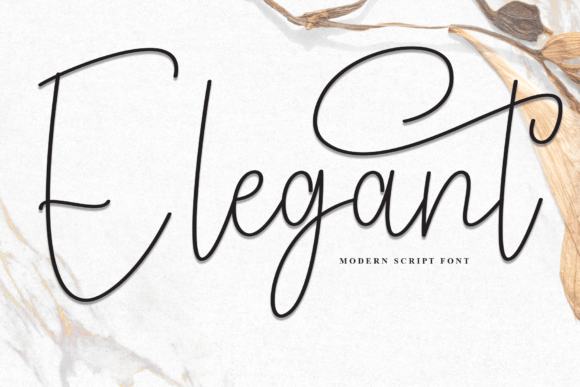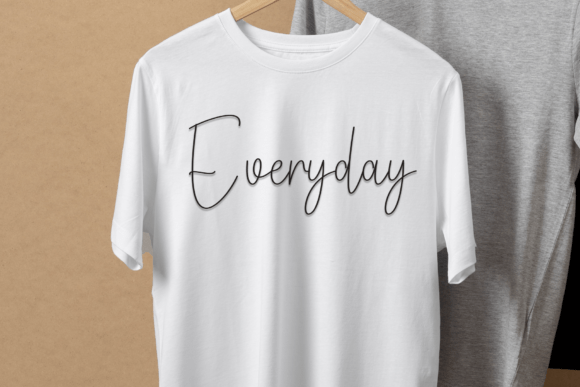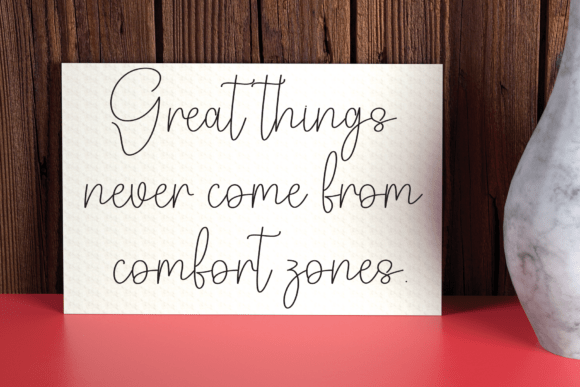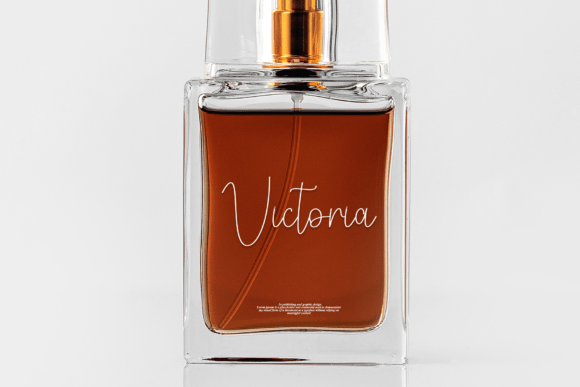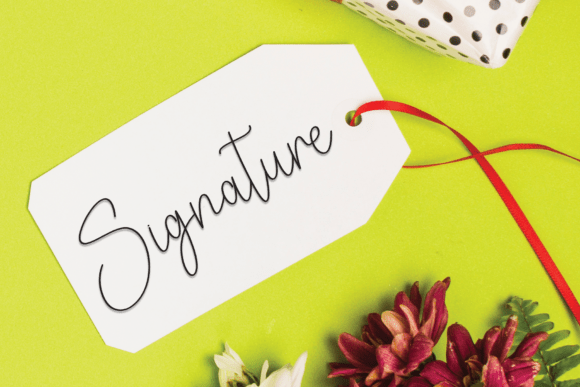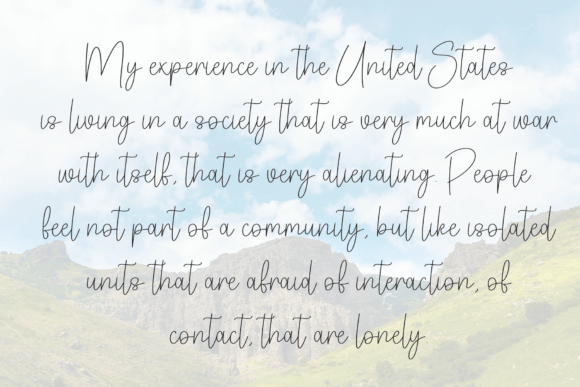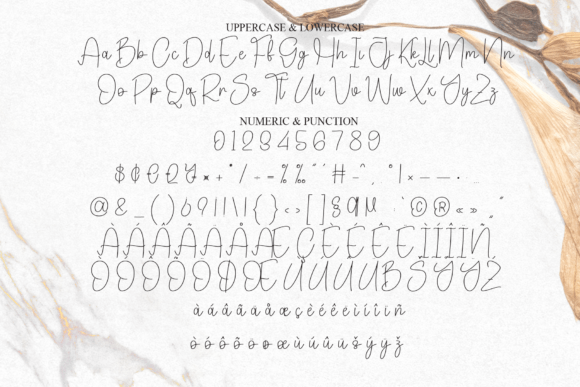
The Perfect Script for Your Next Design Project
Have you ever found yourself in a creative rut, staring at a blank canvas, searching for the perfect font to bring your design to life? That’s where Elegant Font comes in – a stylish handwritten script that’s sure to elevate your projects and leave a lasting impression.
This versatile font is designed to blend modern elegance with a playful touch, making it perfect for logos, packaging, and invitations. Its fluid strokes and charming curves bring a personal feel to any design, adding warmth, sophistication, and creativity to every project.
For designers, Elegant Font is a valuable asset that can help you stand out from the crowd and bring your unique vision to life. Whether you’re working on a high-end branding project or a personal invitation, this typeface is sure to add a touch of elegance and sophistication to your design.
Elegant Font Key Features
- Font Family: Elegant Font is a premium font family with 12 styles, including Regular, Italic, Bold, and Bold Italic.
- Unique Characteristics: Elegant Font features a unique blend of modern and classic elements, with a focus on elegance and sophistication.
- Font Metrics: Each font style has a consistent x-height, baseline, and cap height, ensuring a cohesive look across all styles.
Elegant Font Review
I’ve had the chance to work with the Elegant Font, and I must say, it’s a mixed bag. ✨ Some things really shine, while others leave me feeling a bit meh.
- ✨ Beautifully crafted letterforms: The Elegant Font has a lovely, refined aesthetic that’s perfect for creating a sophisticated look.
- ✨ Highly legible: The font is well-designed for readability, making it a great choice for body text or titles.
- ✨ Versatile: The Elegant Font comes in a range of weights and styles, making it easy to find the perfect fit for your project.
- ⚠️ Limited expressiveness: The Elegant Font is, well, elegant, but it can feel a bit sterile or generic at times.
- ⚠️ Not ideal for bold statements: If you’re looking for a font that can really make a statement, the Elegant Font might not be the best choice.
Overall, I think the Elegant Font is a solid choice for projects that require a refined, sophisticated look. It’s not the most exciting font out there, but it gets the job done. If you’re looking for something a bit more playful or attention-grabbing, you might want to consider other options.
Tips for Getting the Most Out of Elegant Font
Use Elegant Font to create visually appealing headings and titles.
Combine Elegant Font with other fonts to create a unique and stylish typography.
Experiment with different font sizes and colors to add emphasis and hierarchy to your design.
Elegant Font is perfect for:
Creating elegant business cards and letterheads.
Designing stylish menus and brochures.
Adding a touch of sophistication to presentations and documents.
Alternatives to Elegant Font
Playfair Display is an elegant and luxurious font, perfect for high-end branding, luxury goods, and special occasions. It features intricate details and flourishes, making it ideal for titles, headings, and logos. Compared to Elegant Font, Playfair Display is more ornate and luxurious, but less versatile in terms of font sizes and styles.
Merriweather is a classic serif font that exudes elegance and sophistication. It’s perfect for publishing, academic, and professional settings, where a sense of tradition and authority is desired. Compared to Elegant Font, Merriweather is more formal and serious, but lacks the whimsical touch of Elegant Font.
Didot is a high-end font that embodies elegance and refinement. It’s perfect for luxury branding, high-end publications, and exclusive events. Compared to Elegant Font, Didot is more dramatic and attention-grabbing, but can be overwhelming if used excessively.